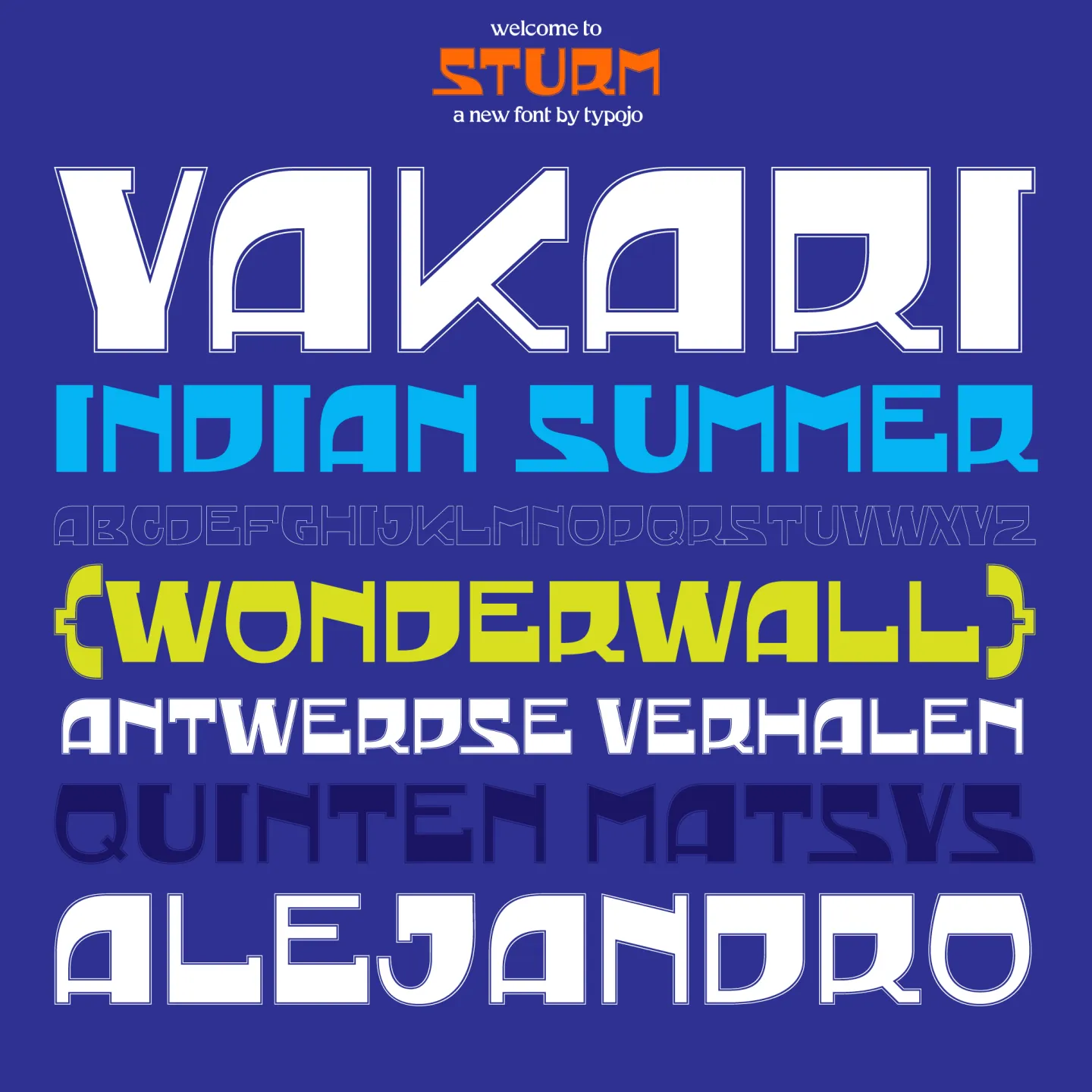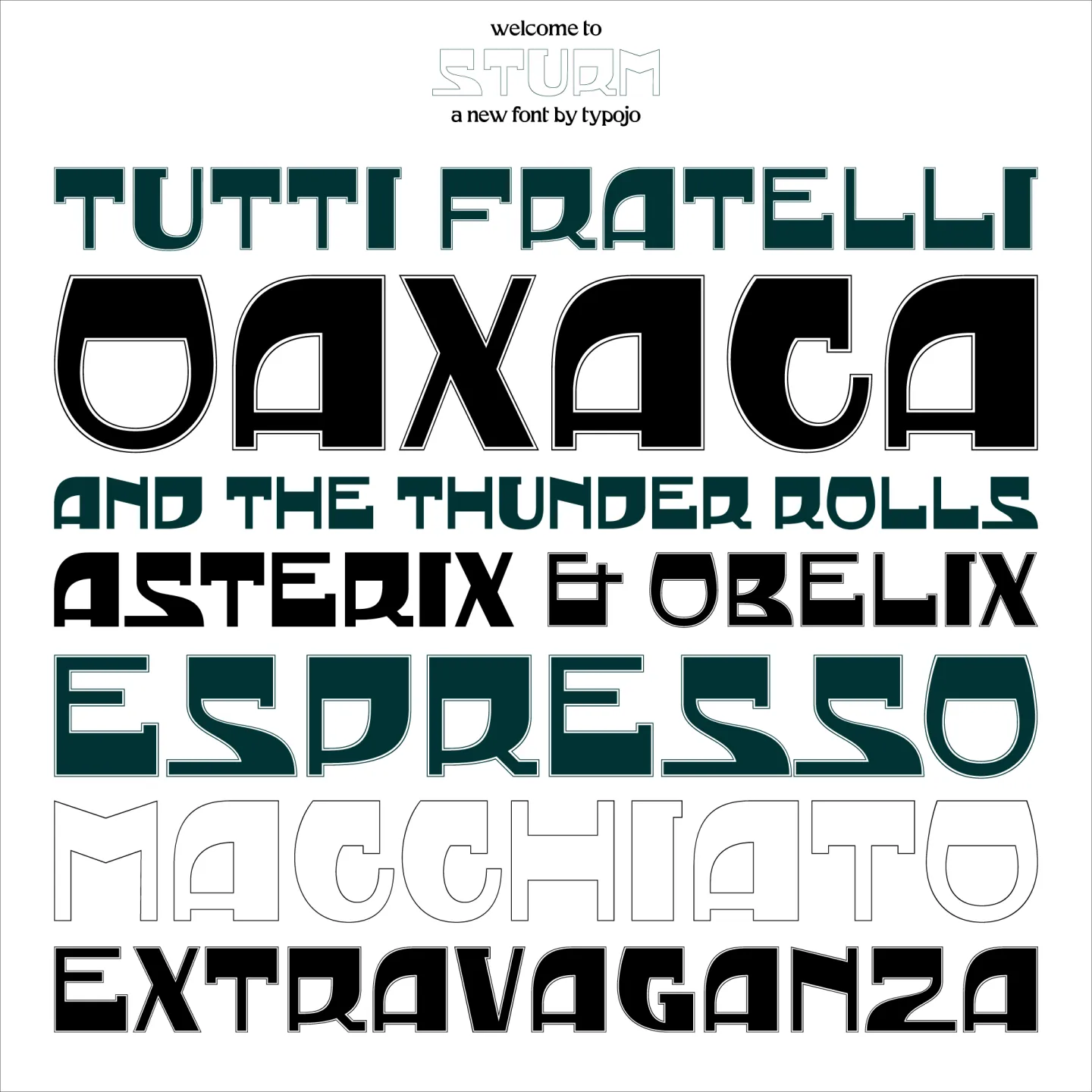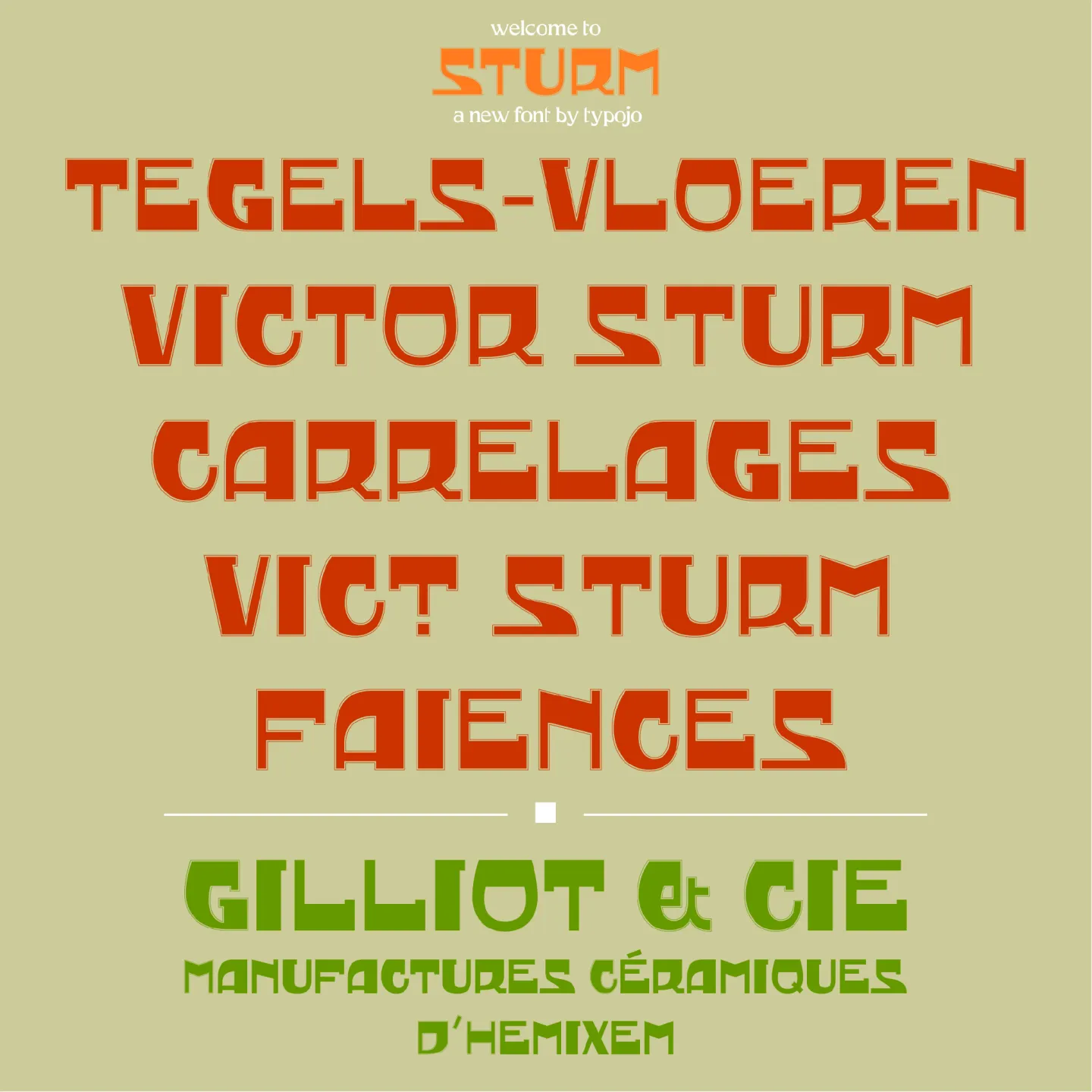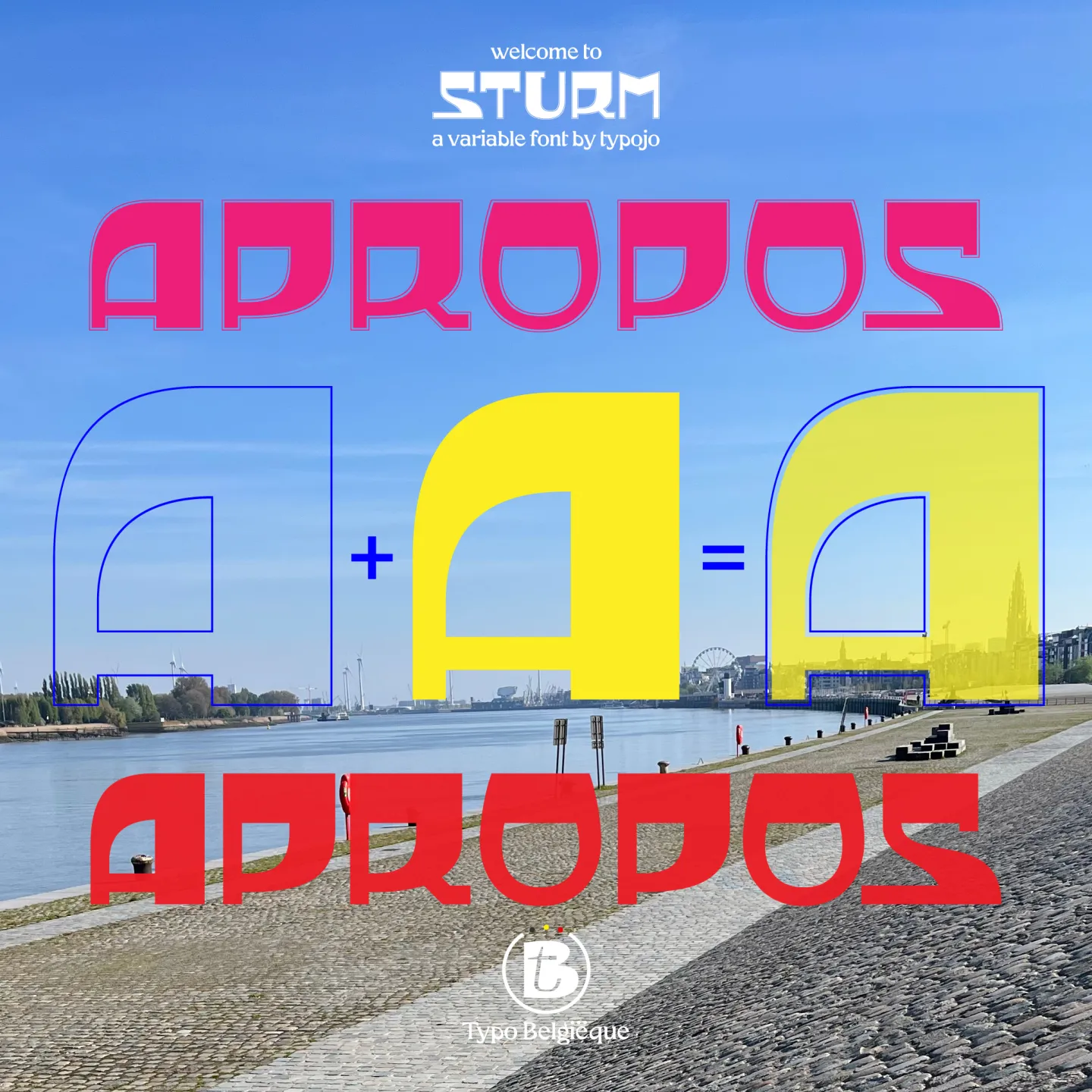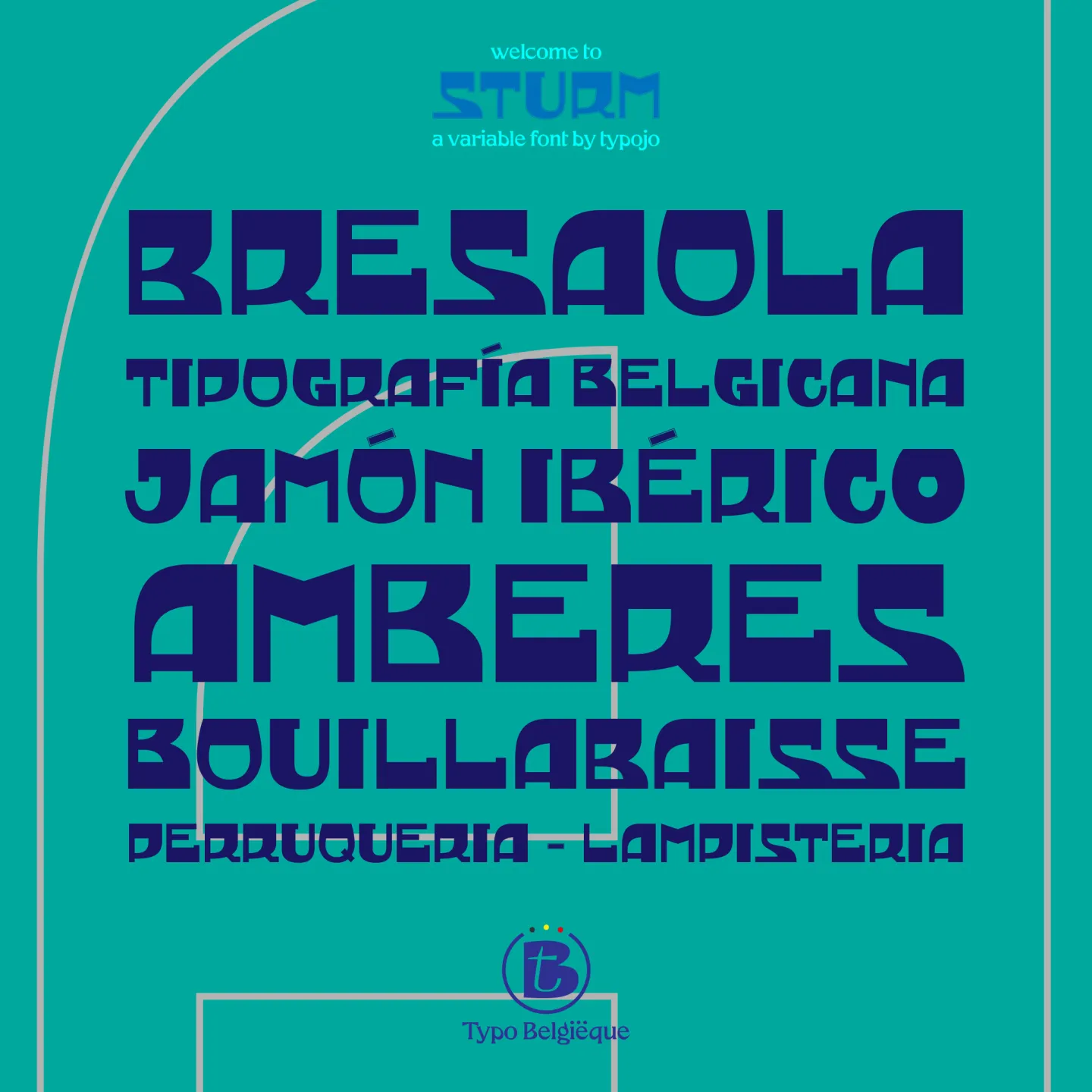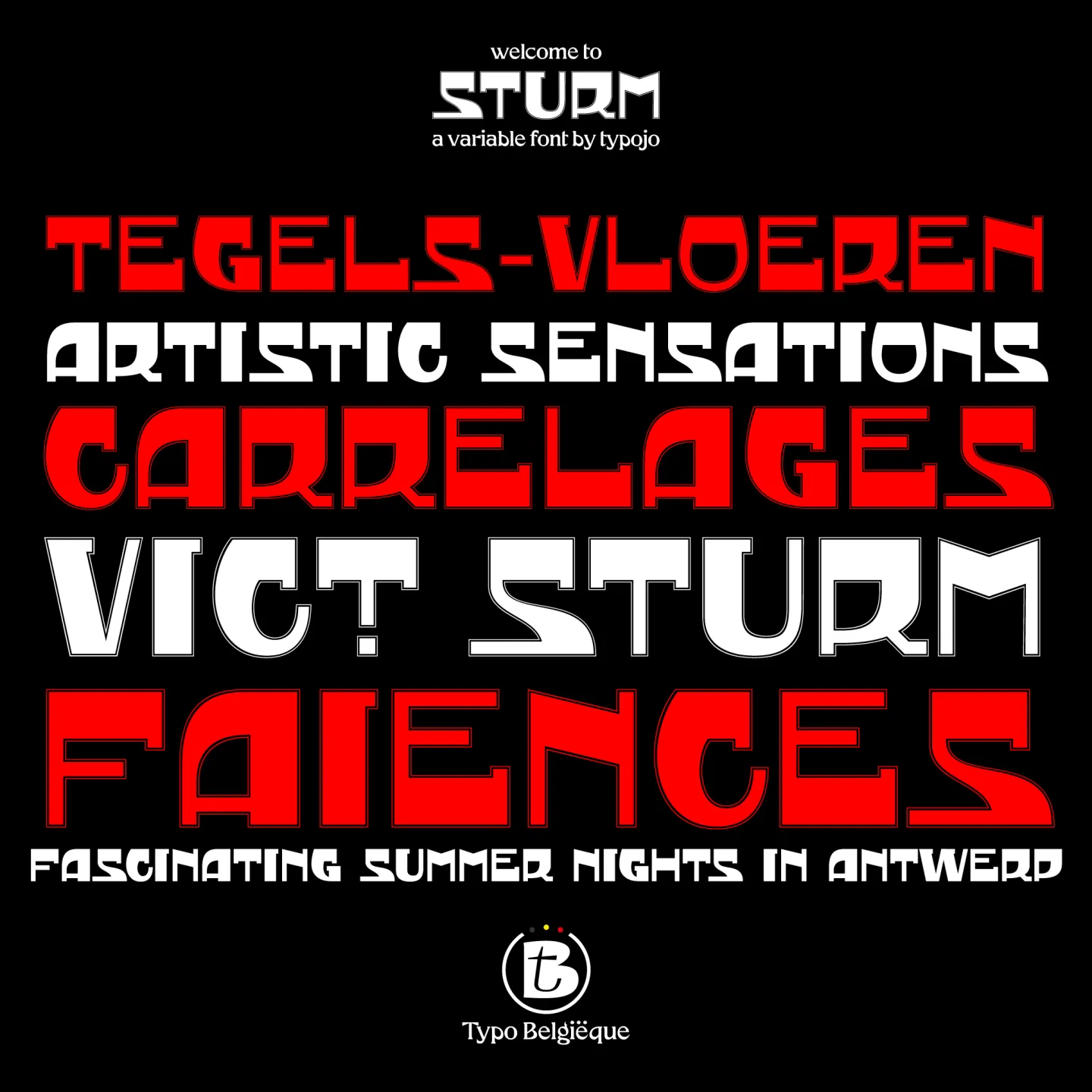
Sturm is a new original font from @typojo inspired by the architectural lettering on the glazed mosaic tiles of the Victor Sturm building at the corner of ‘Oever’ and ‘Steegsken’ in Antwerp (Belgium). These tiles were most likely crafted by Gilliot & Cie, Manufactures Céramiques d’Hemixem, one of Sturm’s main suppliers.
Sturm is a display typeface in the art deco style, and features solid geometric characters with a light border. Each capital is executed in four ways: the original design, an outline version, the separate inner shape, and the inner shape aligned to the baseline and capheight. This makes Sturm very suitable for logo’s, editorial & poster design, advertising, branding and packaging design.
Sturm is part of ‘Typo Belgiëque’, a practice oriented scientific research & type design project examining the visual design identity of Belgium in the nineteenth and twentieth century that breathes new life into Belgium’s historical typeface families. ◊